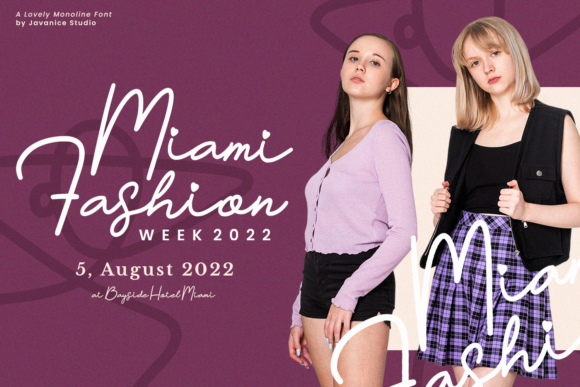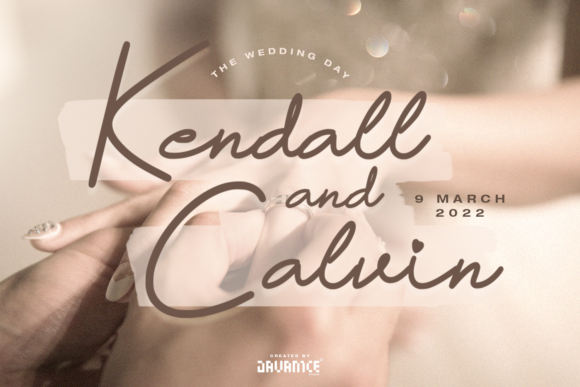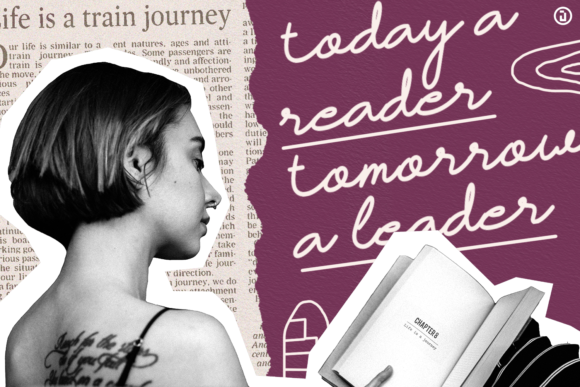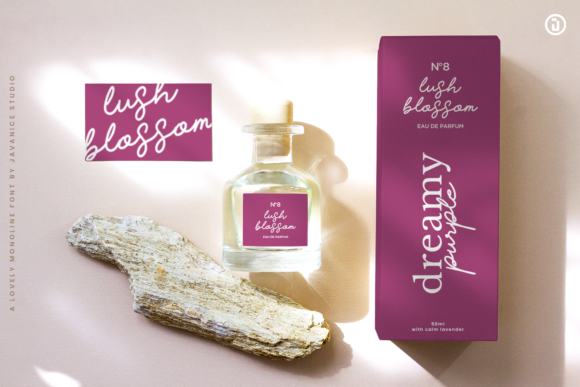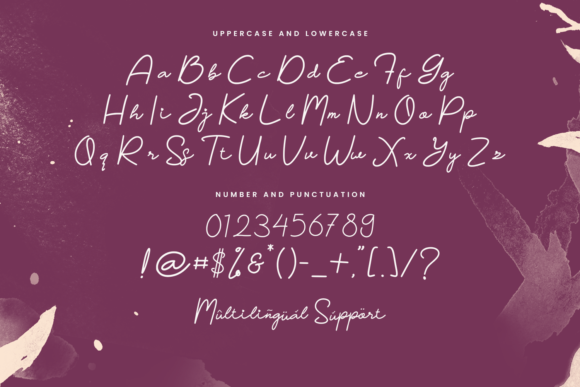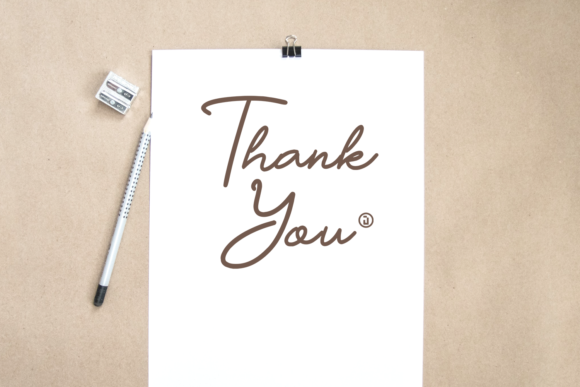
Introducing Deffiliya Font: The Ultimate Relaxed and Casual Handwritten Font
Are you tired of using the same old fonts for your designs? Look no further! Deffiliya Font is here to revolutionize your creative projects with its unique relaxed and casual handwritten style. This versatile font is perfect for a wide range of applications, from product packaging and branding projects to magazine covers, social media, and even wedding designs.
What Makes Deffiliya Font So Special?
Deffiliya Font boasts a distinctive handwritten style that exudes a sense of calmness and friendliness. Its casual and relaxed vibe makes it perfect for designers and crafters looking to add a personal touch to their work. Whether you’re creating a brand identity, designing a magazine cover, or simply looking for a font to express your thoughts, Deffiliya Font is the perfect choice.
Deffiliya Font’s versatility is one of its standout features. Here are some of the many design projects where this font can shine:
- Product Packaging: Add a personal touch to your product packaging with Deffiliya Font. Its unique style will help your product stand out on store shelves and make it more memorable to customers.
- Branding Projects: Establish a strong brand identity with Deffiliya Font. Its relaxed and casual vibe makes it perfect for creating a friendly and approachable brand image.
- Magazine Covers: Create eye-catching magazine covers with Deffiliya Font. Its distinctive style will grab the attention of readers and make your magazine stand out.
- Social Media: Use Deffiliya Font to create engaging social media posts that reflect your brand’s personality. Its casual style makes it perfect for creating a friendly and approachable online presence.
- Wedding Designs: Add a touch of elegance and sophistication to your wedding designs with Deffiliya Font. Its relaxed and casual vibe makes it perfect for creating beautiful wedding invitations, cards, and decorations.
Why Choose Deffiliya Font?
With so many fonts available, why choose Deffiliya Font? Here are just a few reasons:
- Unique Style: Deffiliya Font boasts a unique and distinctive style that will set your designs apart from the rest.
- Versatility: Deffiliya Font is perfect for a wide range of design projects, from product packaging to wedding designs.
- Easy to Read: Despite its casual style, Deffiliya Font is easy to read and understand, making it perfect for body text and headlines.
- Customizable: Deffiliya Font can be easily customized to fit your brand’s style and personality.
Tips for Using Deffiliya Font
Here are some tips for getting the most out of Deffiliya Font:
- Pair it with Other Fonts: Experiment with pairing Deffiliya Font with other fonts to create a unique and eye-catching design.
- Use it for Headlines and Body Text: Deffiliya Font is perfect for both headlines and body text, making it a great choice for a wide range of design projects.
- Customize it: Don’t be afraid to customize Deffiliya Font to fit your brand’s style and personality.
In conclusion, Deffiliya Font is a versatile and unique handwritten font that’s perfect for a wide range of design projects. Its relaxed and casual vibe makes it perfect for designers and crafters looking to add a personal touch to their work. With its ease of use, customizability, and distinctive style, Deffiliya Font is a great choice for anyone looking to elevate their designs.